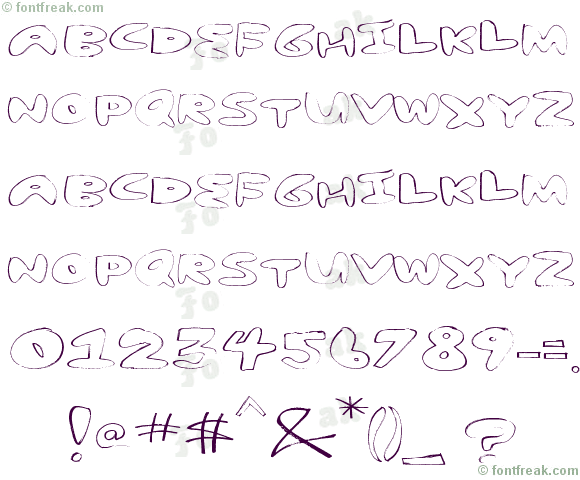
yum nub extended
The Yum Nub Extended font by Xerographer Fonts is a playful, decorative typeface that captures attention with its unique design. This font is characterized by its rounded forms and whimsical flair, making it an ideal choice for projects that aim to evoke a sense of fun and creativity. The stroke weight is consistent yet soft, with a subtle variation that adds visual interest without overwhelming the reader. The spacing between letters is generous, allowing for easy readability while maintaining a light-hearted aesthetic.
Best suited for informal applications, the Yum Nub Extended font is perfect for a variety of creative projects. It shines in contexts such as children's book covers, where its playful nature can engage young readers. Additionally, it works wonderfully for food-related branding, such as restaurant menus or product packaging, where its friendly appearance can entice customers. The font also lends itself well to event promotions, including birthday invitations or party flyers, where a cheerful vibe is essential. Graphic designers, small business owners, and content creators will find this font particularly useful for projects that require a fresh and approachable look.
What sets the Yum Nub Extended font apart is its ability to balance whimsy with functionality. It stands out in a sea of conventional typefaces, offering a unique option for those looking to inject personality into their designs. Whether you're crafting a vibrant marketing campaign or designing an eye-catching poster, the Yum Nub Extended font free download provides an excellent resource to elevate your project. Its distinctive style and versatility make it a must-have for anyone seeking to leave a memorable impression.